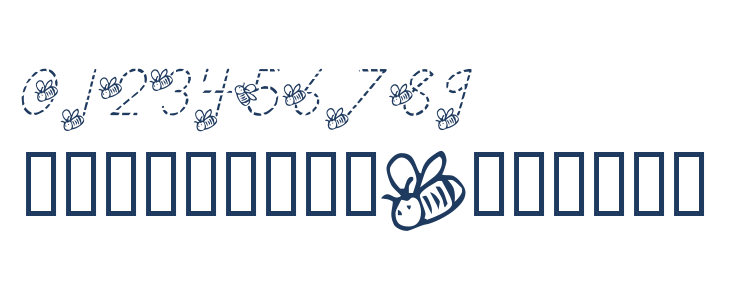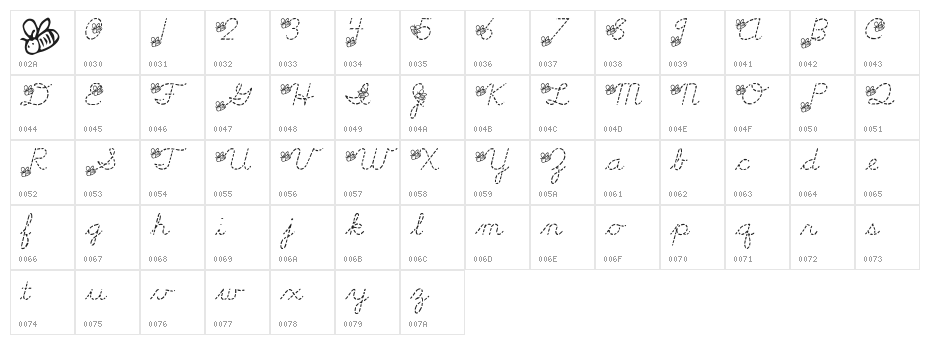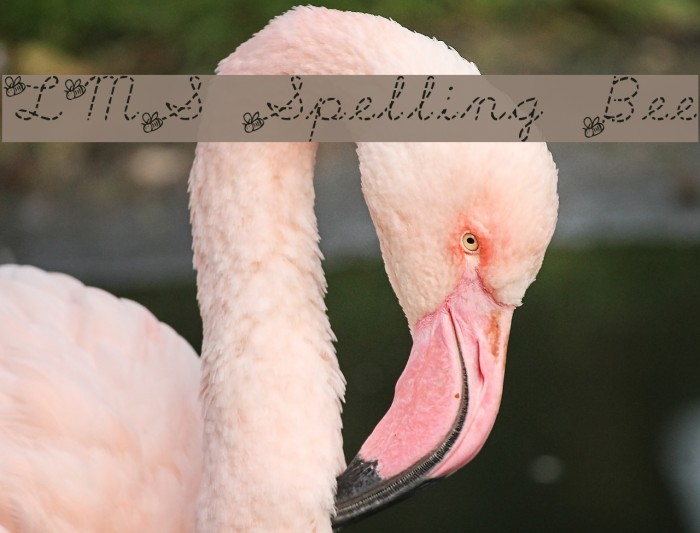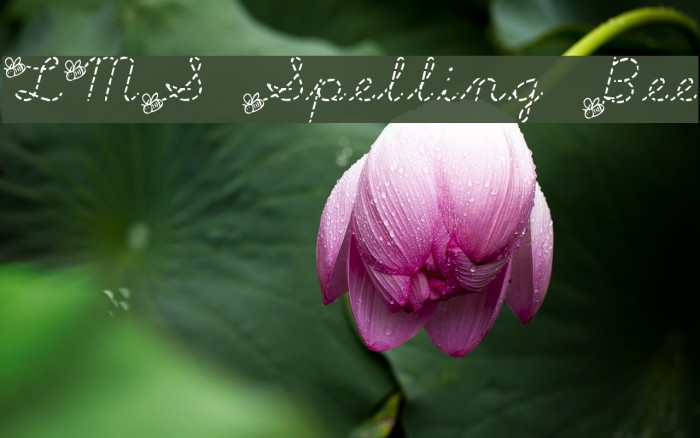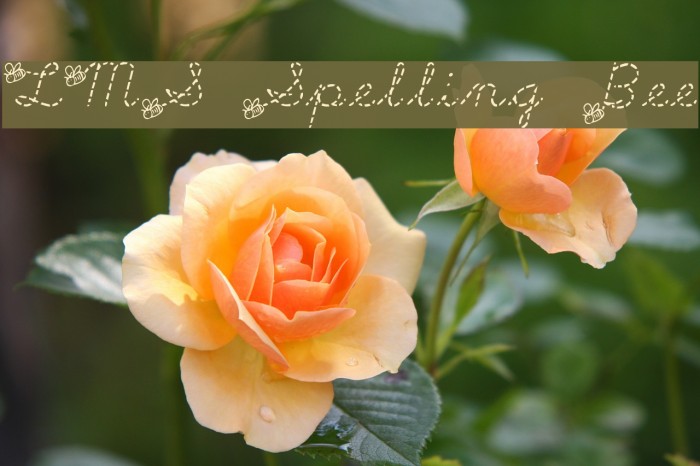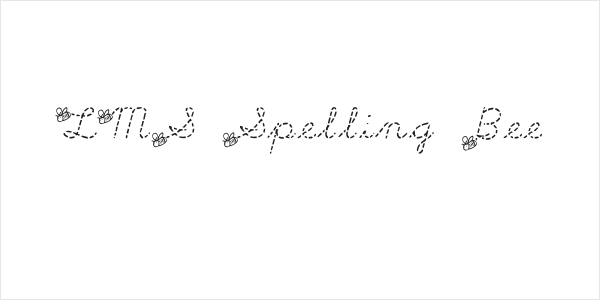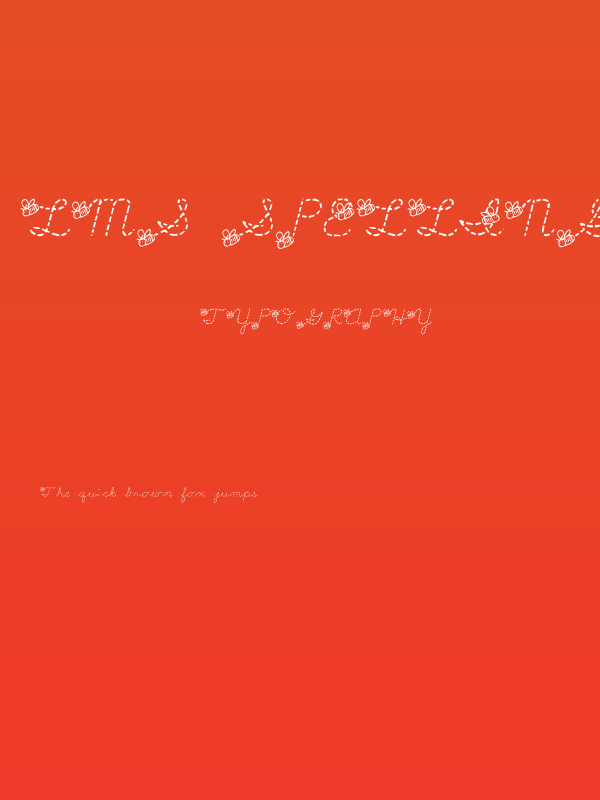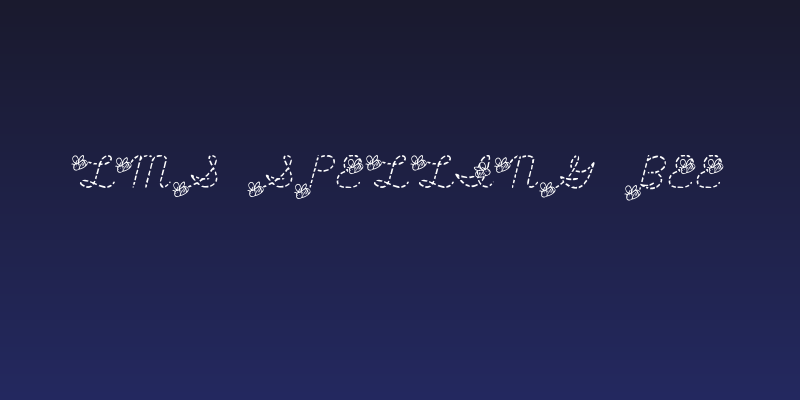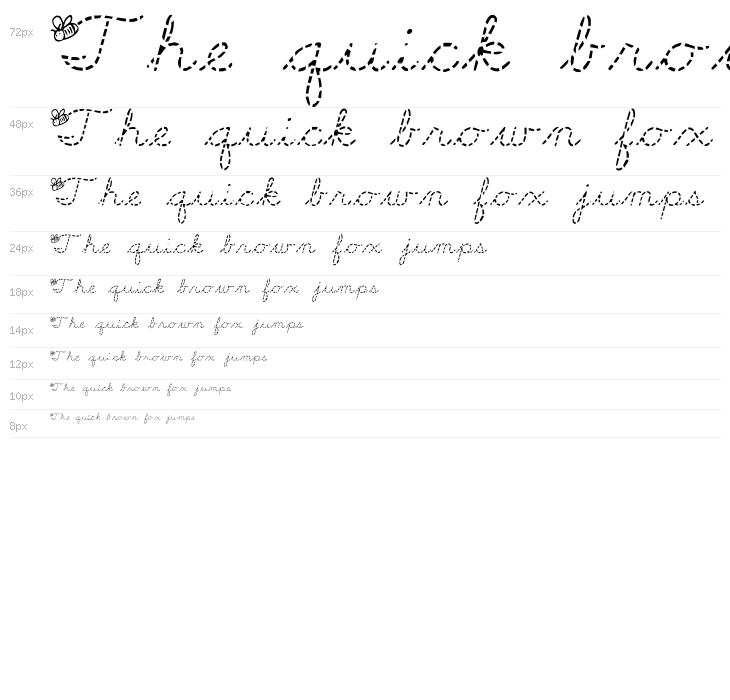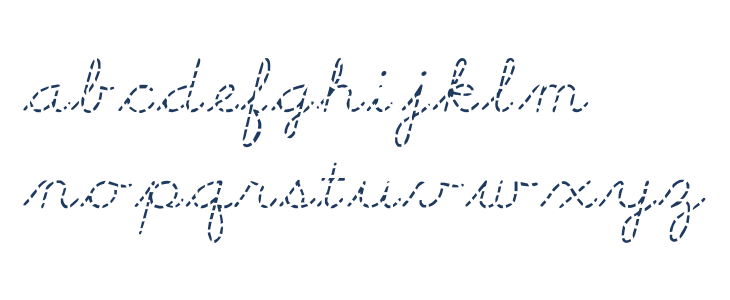
LMS Spelling Bee Font
LMS Spelling Bee Description
This playful and whimsical font features a dotted cursive style with charming bee illustrations integrated into the design. Each letter is crafted with a dashed line, creating a sense of movement and fun. The bees add a delightful touch, making it perfect for children's projects or educational materials. The font maintains a consistent flow, with smooth curves and loops that enhance its handwritten appeal. The numbers and special characters also follow the same dotted pattern, ensuring uniformity across all elements.
| Use Case | Headlines, Logos, Educational materials |
| Proposed Projects | Ideal for children's books, educational materials, playful invitations, and themed party decorations. |